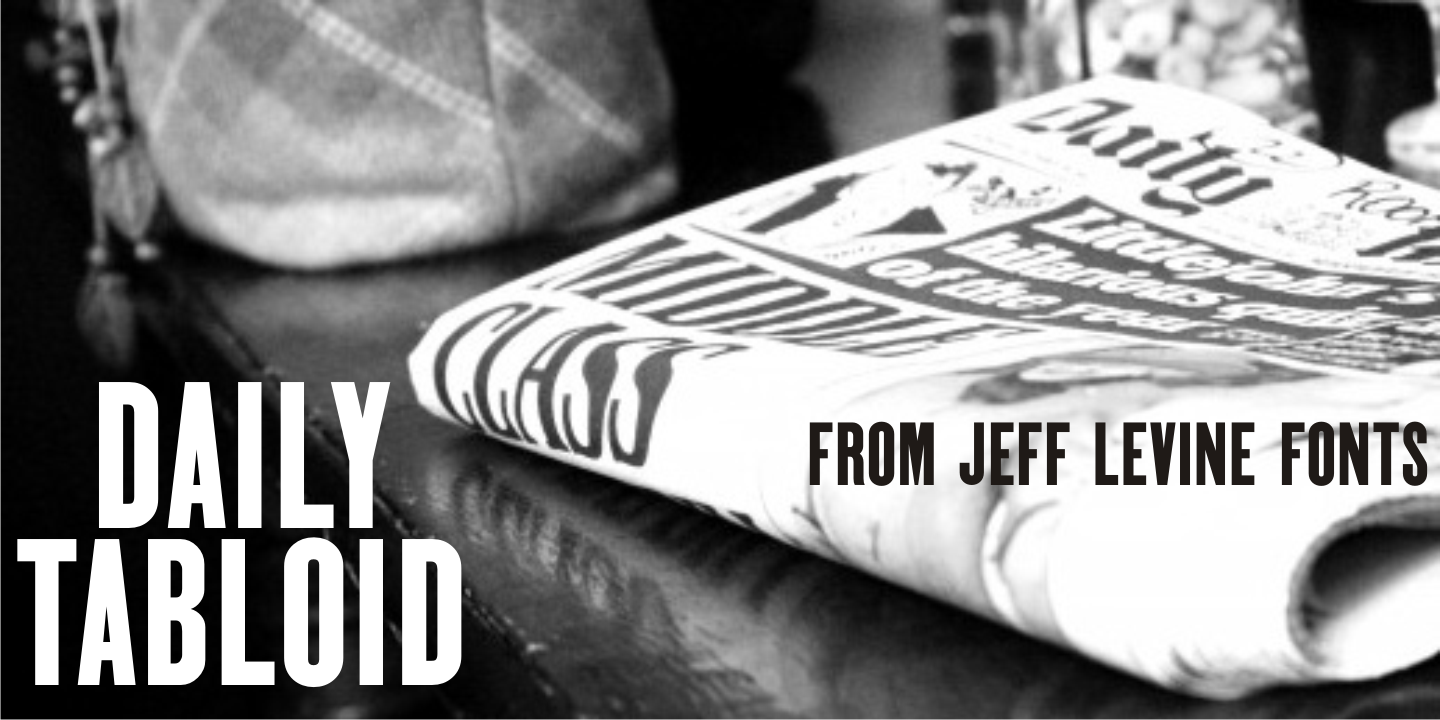
Daily Tabloid JNL Font is perfect for journalism-inspired projects including newspaper headlines, magazine covers, news blog headers, editorial designs, breaking news graphics, vintage newspaper recreations, press release layouts, and media publication branding. This authentic typeface brings classic newspaper authority and journalistic credibility to any design project.
What makes Daily Tabloid JNL Font exciting is its authentic recreation of classic newspaper typography from the golden age of print journalism. The bold, condensed letterforms feature the characteristic weight and proportion that commanded attention on newsstand headlines. This font captures the urgency and importance of breaking news while maintaining the trustworthy appearance that readers associate with credible journalism.
The Daily Tabloid JNL Font family typically includes bold and regular weights with complete uppercase and lowercase character sets, numerals, punctuation, and essential symbols. The design often features slightly condensed proportions optimized for headline use, with some versions including extended character sets for international news applications and additional typographic symbols commonly used in newspaper design.
Whether you're designing for news websites, editorial publications, or media-related brands, Daily Tabloid JNL Font Free Download delivers the authoritative presence that establishes instant credibility. Its strong visual impact makes it ideal for attention-grabbing headlines and important announcements. The font's newspaper heritage ensures it conveys reliability and trustworthiness, making it perfect for any project requiring the respected aesthetic of traditional journalism and professional news presentation.